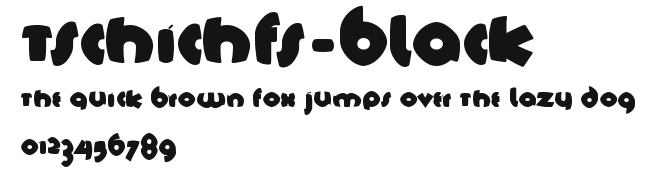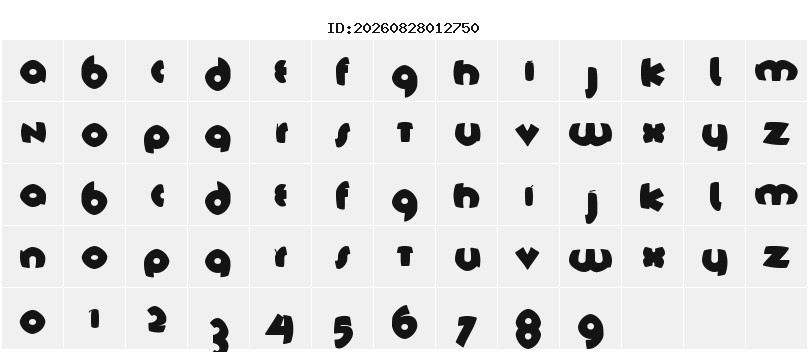
TschichFS-Black Preview
• Font Name: TschichFS-Black
• Font ID: TschichFS-Black
• Full Font Name: TschichFS-Black
• Version: 1.0 2002-06-15
• PostScript Name: TschichFS-Black
• Character Count: 97
About TschichFS-Black.ttf
TschichFS-Black.ttf is a modern, elegant sans-serif font designed for ultimate readability and visual harmony. Perfect for branding, headlines, web design, and print materials.